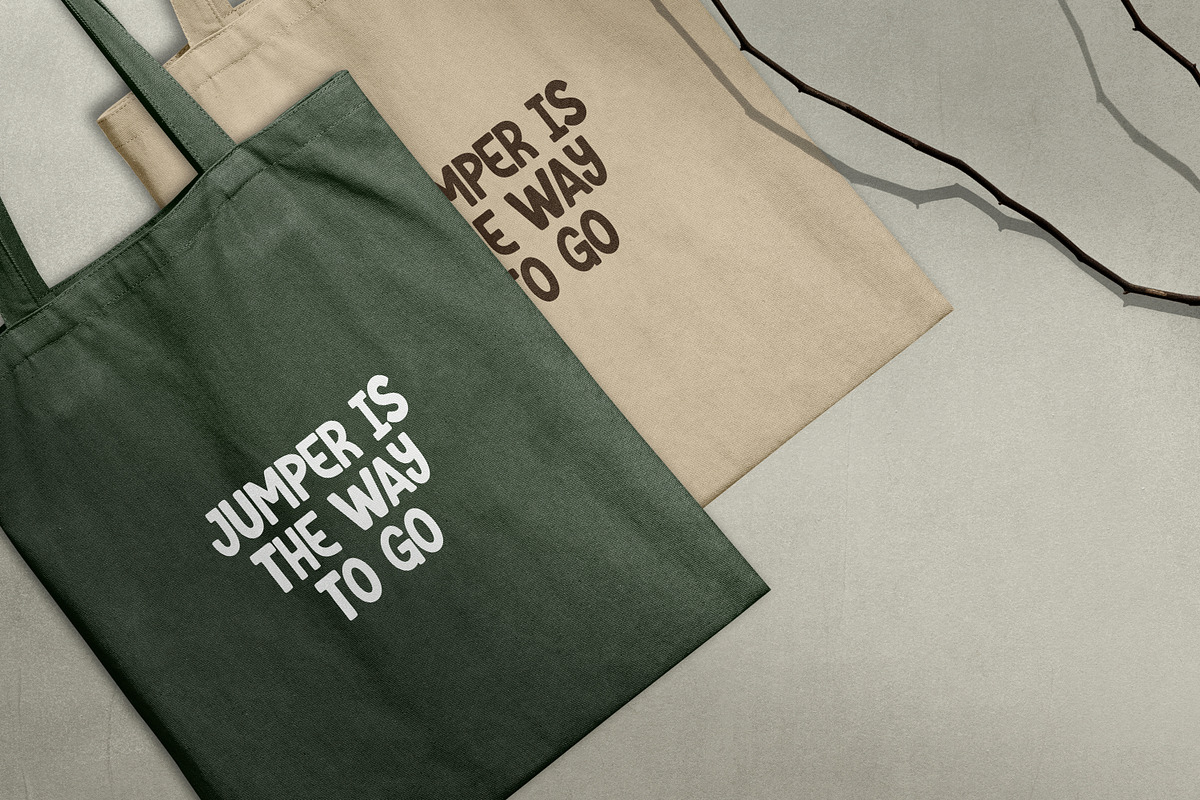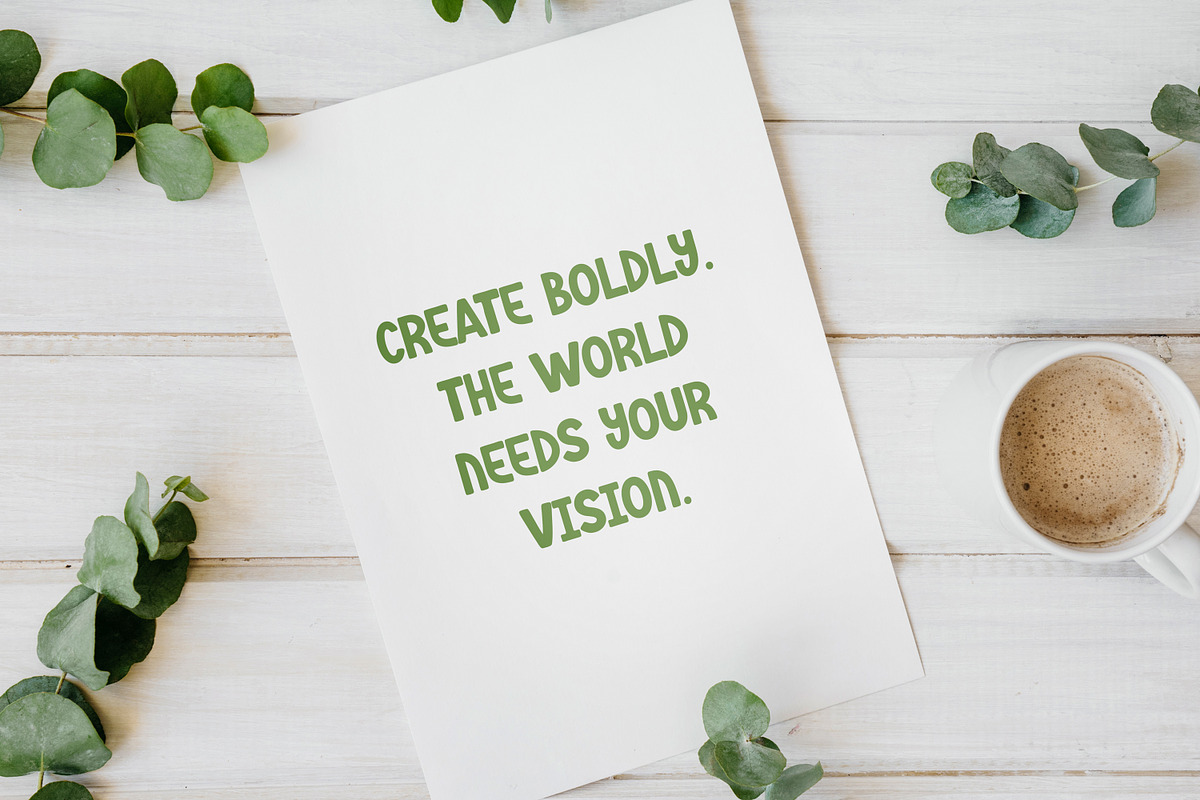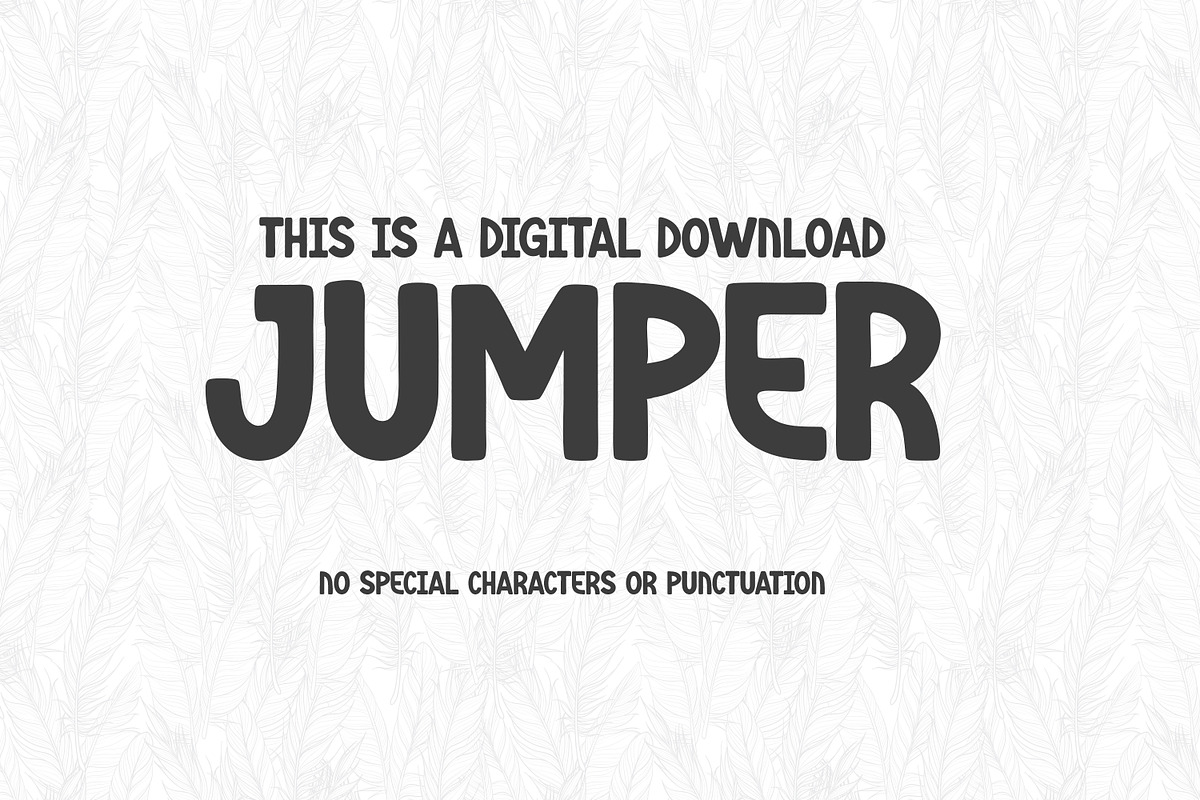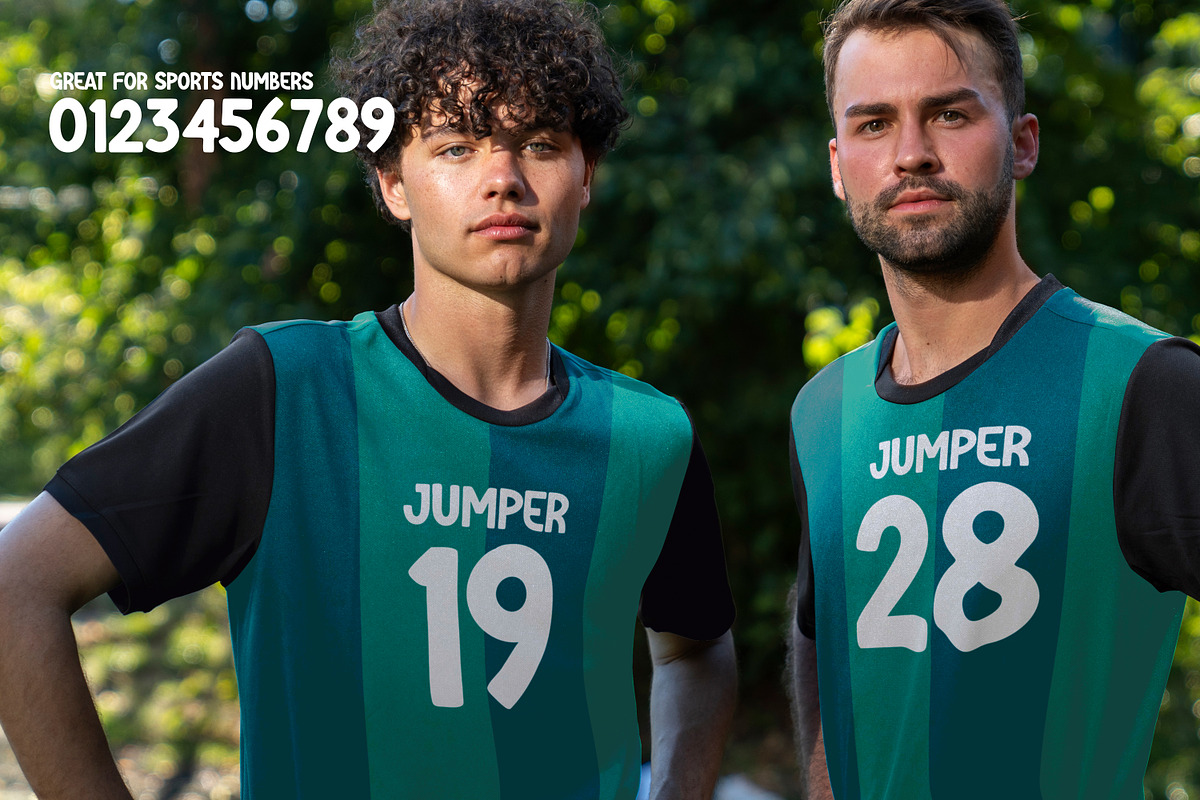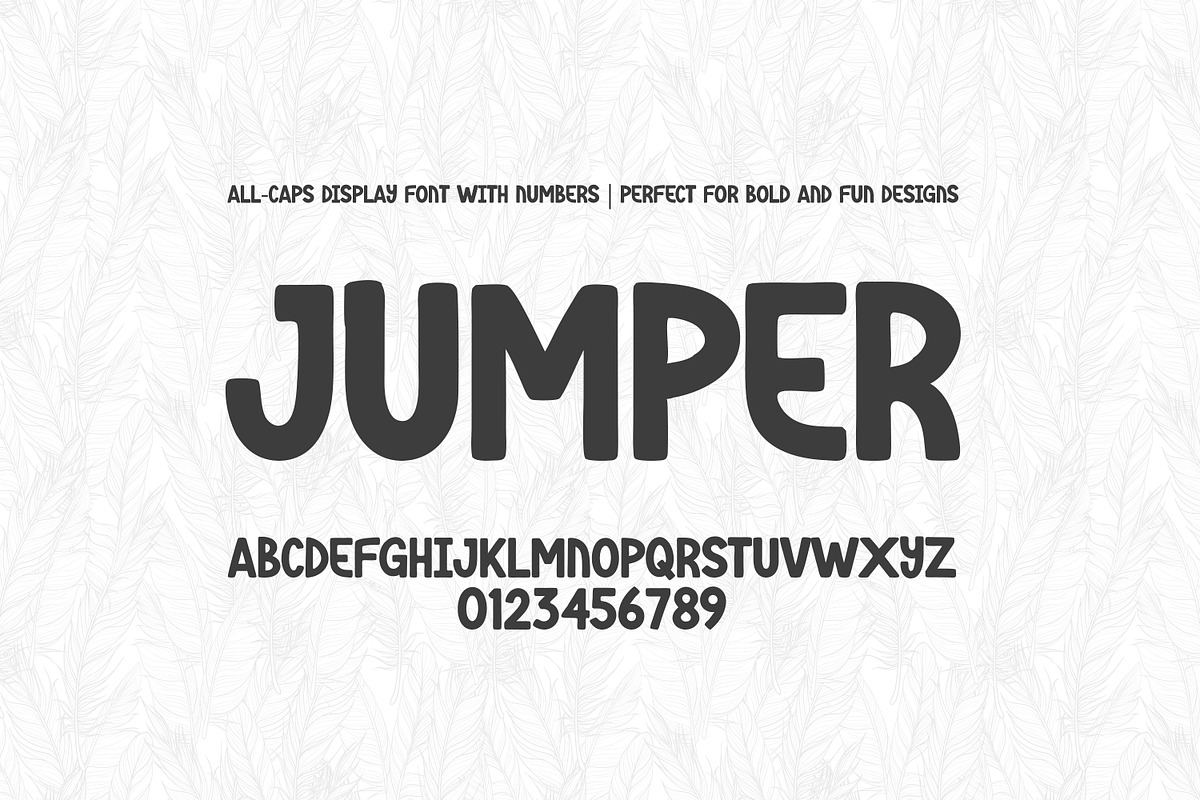
JUMPER – All-Caps and Numbers Font
## About the Font
JUMPER is a bold, rounded all-caps display font that adds personality and clarity to your designs. Great for eye-catching graphics, playful branding, and more.
## Features
- Uppercase A–Z
- Numbers 0–9
- No special symbols or punctuation
## Ideal For
- Branding
- Posters & flyers
- Apparel design
- Kids products